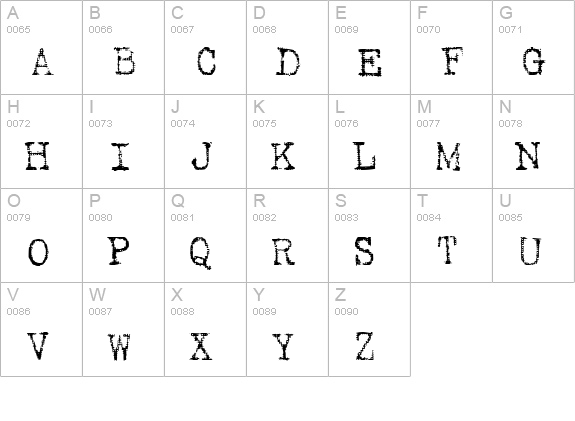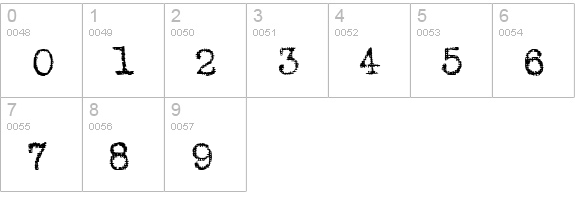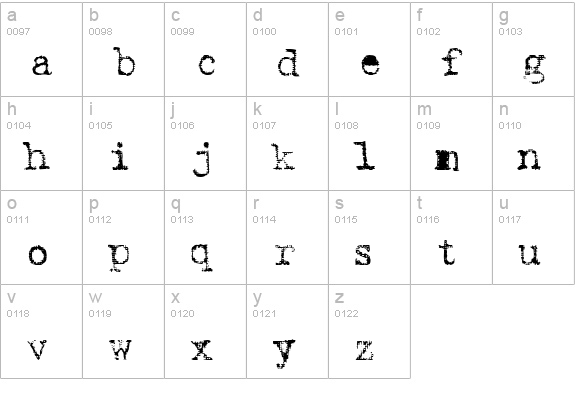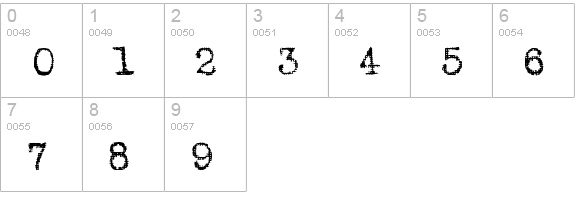
Armenschrift Font Details
Armenschrift font is a beautifully crafted typeface that seamlessly blends elegance and readability. Its classic yet modern design makes it perfect for a wide range of projects, from invitations and logos to branding and packaging. The intricate details of the serif letterforms add a touch of sophistication to any design. What sets Armenschrift font apart is that it is not only visually stunning but also free for personal and commercial use. This means that you can elevate your projects without worrying about breaking the bank. Armenschrift font is freely available to download at FontsMarket.com, making it easily accessible to designers and creatives looking to add a touch of class to their work. Whether you're working on a wedding invitation, a restaurant menu, or a corporate logo, Armenschrift font is sure to make a lasting impression. Its versatility and timeless appeal make it a must-have in any designer's toolkit. Download Armenschrift font today and elevate your designs with this exquisite typeface.